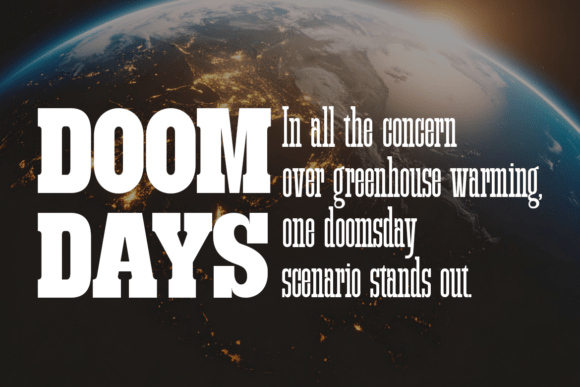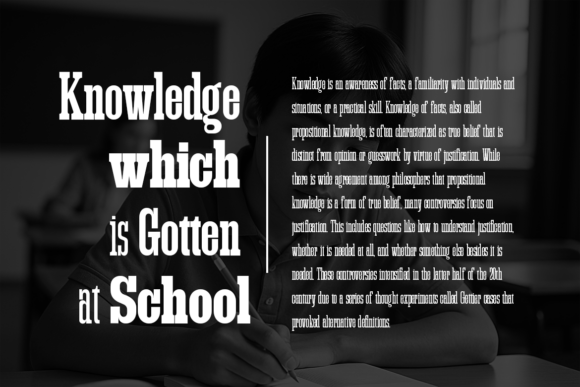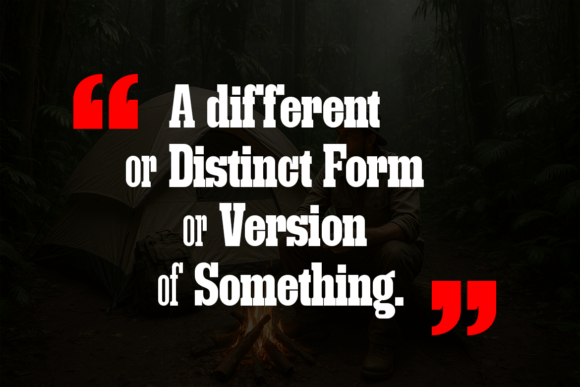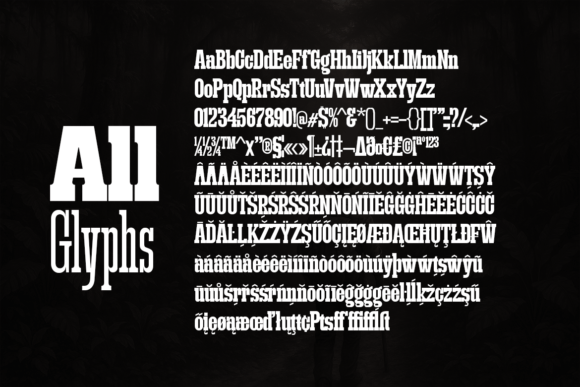
Unlock Bold Visuals with Getup Ultra Condensed Font
In the world of design, typography plays a crucial role in capturing the essence of a brand or message. For designers seeking to make a strong visual impact in tight spaces, the Getup Ultra Condensed font is a game-changer. This powerful slab serif font family is engineered to deliver a punch in extremely narrow columns or vertical banners, making it perfect for a wide range of applications.
The Power of Ultra-Condensed Typography
GetUp – Ultra Condensed is not just any ordinary font. It is a meticulously crafted typeface, designed to provide a strong visual presence in situations where space is limited. Whether you’re working on a sleek app interface, a massive billboard, or an urban architectural project, this font brings a professional, high-energy, and undeniably bold aesthetic to your creative toolkit.
Engineered for Versatility
One of the standout features of the Getup Ultra Condensed font is its expansive weight family, comprising 10 complete weights ranging from Thin to Extra Black. This versatility allows designers to use the lighter versions for sophisticated subheaders and the heavier weights for headlines that demand absolute attention. The structured, blocky serifs of this font provide a sense of stability and authority, making it an excellent choice for athletic branding, luxury adventure gear, or urban architectural projects.
Key Features of Getup Ultra Condensed
- 10 Weights: From Thin, Extra Light, Light, Regular, Medium, Semi Bold, Bold, Extra Bold, Black, to Extra Black, ensuring that you have the perfect weight for any design requirement.
- Ultra-Condensed: Perfect for use in tight columns or vertical banners where a strong visual impact is needed.
- Slab Serif: Provides a sense of stability and authority, making it suitable for a variety of applications including athletic branding and luxury adventure gear.
- Professional and Bold Aesthetic: Adds a high-energy feel to any design, making it stand out in a crowded visual landscape.
Applications of Getup Ultra Condensed
The Getup Ultra Condensed font is incredibly versatile and can be used in a multitude of design projects. Here are some of the areas where this font truly shines:
- Athletic Branding: The bold and dynamic nature of this font makes it perfect for sports brands looking to convey energy and movement.
- Luxury Adventure Gear: For brands that offer high-end outdoor equipment or luxury travel experiences, this font provides the perfect blend of sophistication and ruggedness.
- Urban Architectural Projects: The structured serifs and professional aesthetic of Getup Ultra Condensed make it an excellent choice for projects that require a sense of stability and modernity.
- App Interfaces: For mobile app designers looking to create a sleek and impactful user experience, this font is an excellent choice.
- Billboards and Large-Scale Advertising: The bold nature of this font ensures that your message stands out, even from a distance.
Why Choose Getup Ultra Condensed?
In a sea of fonts, Getup Ultra Condensed stands out for its unique combination of narrow width, bold aesthetic, and versatility. Here are a few reasons why designers and crafters should consider adding this font to their toolkit:
- Versatility: With 10 weights to choose from, you can use Getup Ultra Condensed for a wide range of design projects, from subtle subheaders to attention-grabbing headlines.
- Professional Look: The structured serifs and bold aesthetic give your designs a professional and high-end look.
- Impactful: Perfect for designers looking to make a strong visual impact in tight spaces.
| Font Name | Getup Ultra Condensed Font |
| Author | Artisans |
Getup Ultra Condensed is more than just a font – it’s a design powerhouse. Its unique blend of ultra-condensed width, bold aesthetic, and expansive weight family makes it an invaluable asset for designers looking to create impactful and professional designs. Whether you’re working on a sleek app interface, a massive billboard, or an urban architectural project, this font is sure to elevate your design to the next level. With Getup Ultra Condensed, you can unlock bold visuals and make a lasting impression on your audience.